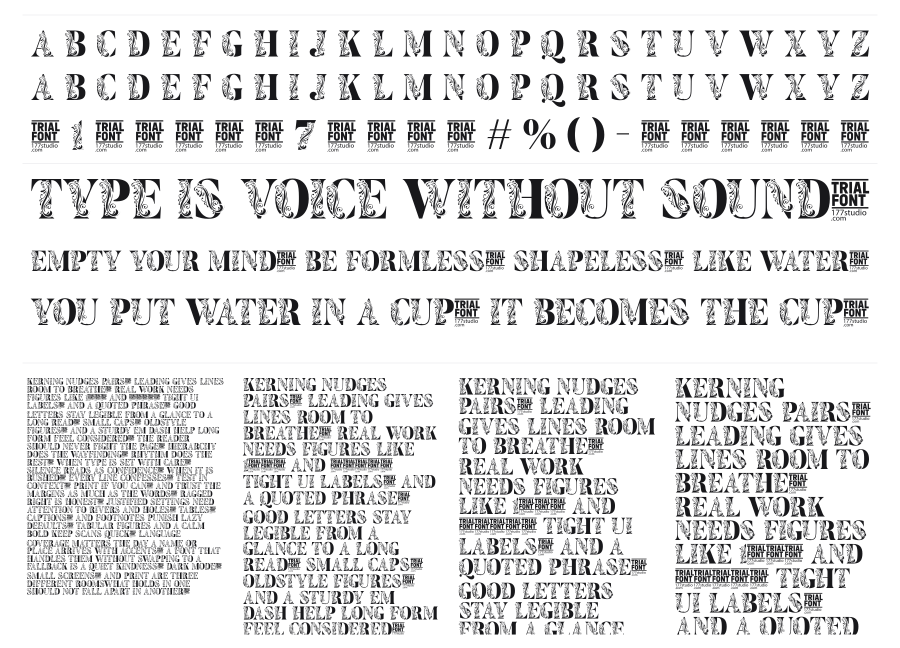
Flower Display
Flower Display is a heavy Victorian-style ornate serif packed with intricate floral and foliate decoration woven into every character. The extreme stroke contrast and white botanical detail inside the thick stems give it the quality of antique woodblock-print lettering. Works best at large sizes where all that ornamentation can breathe.